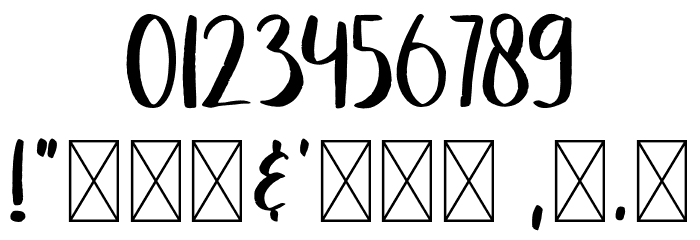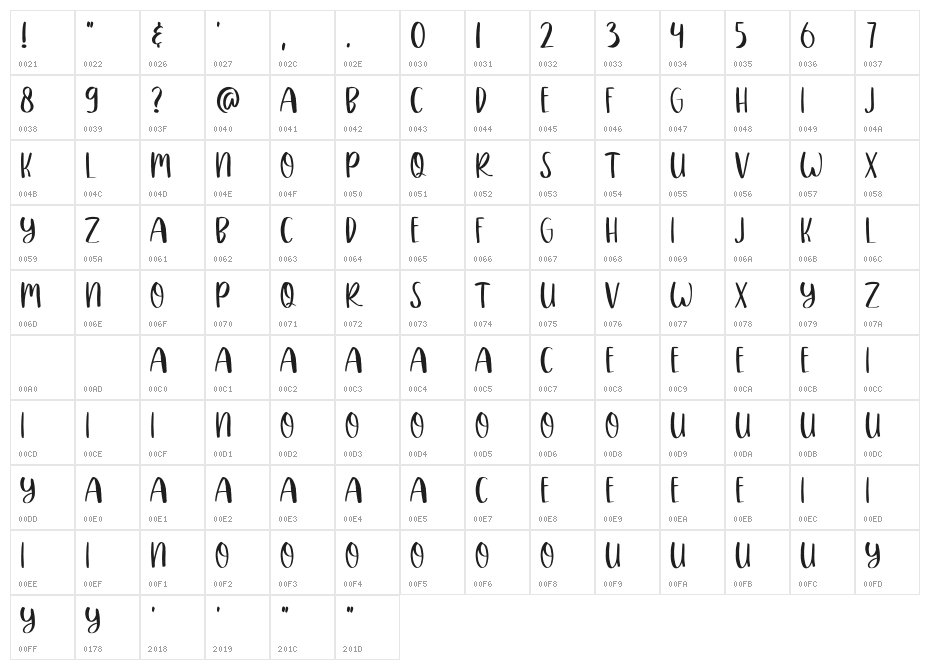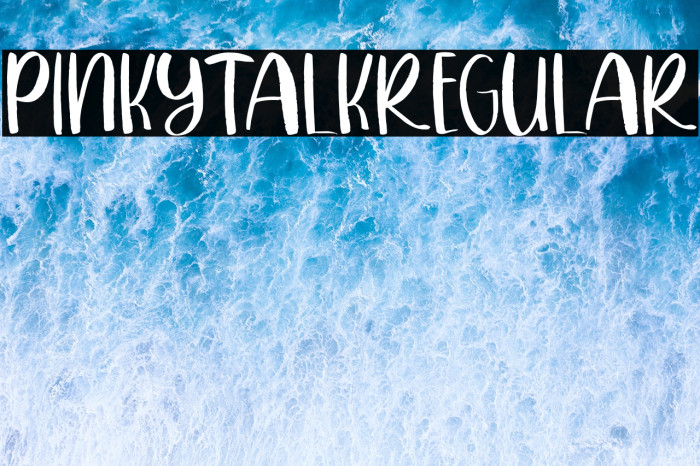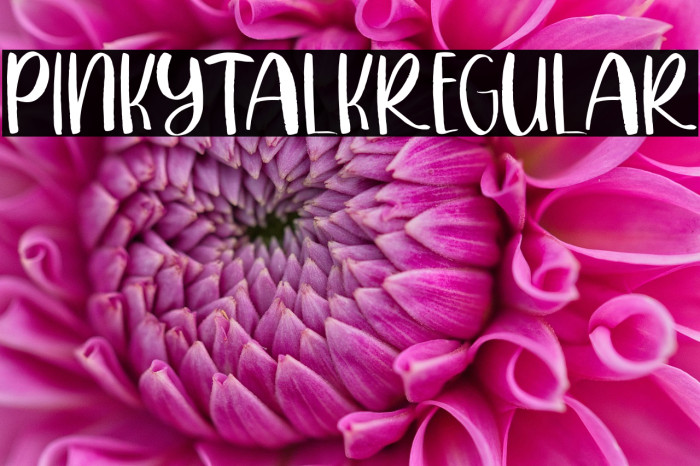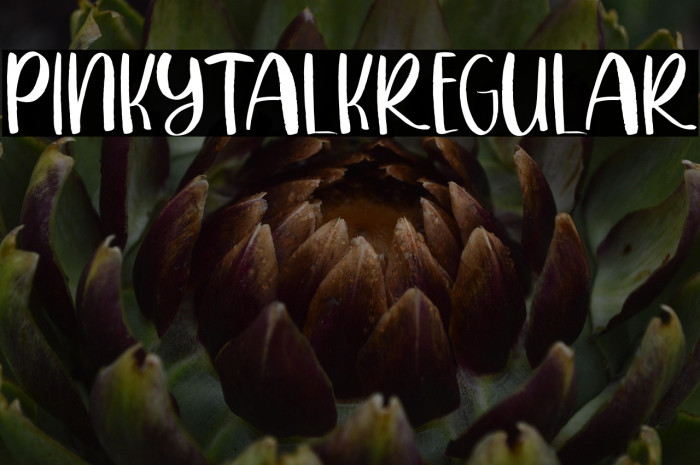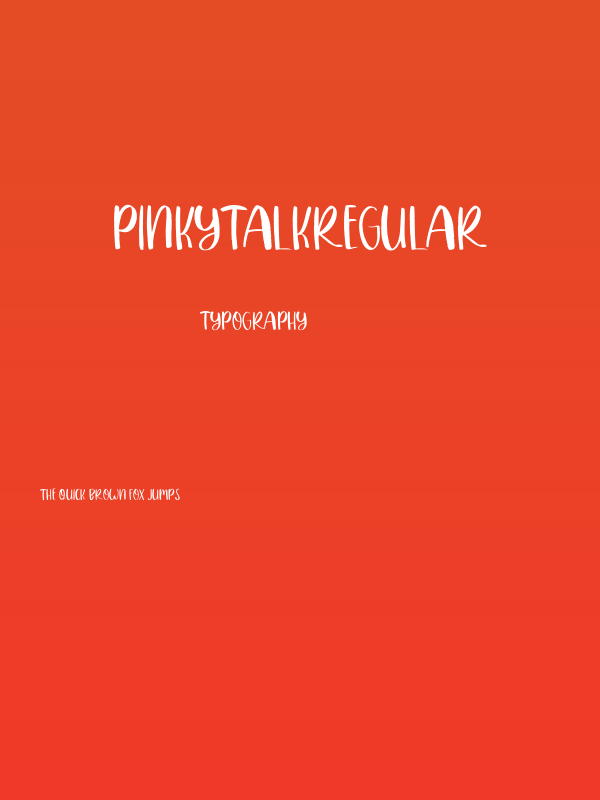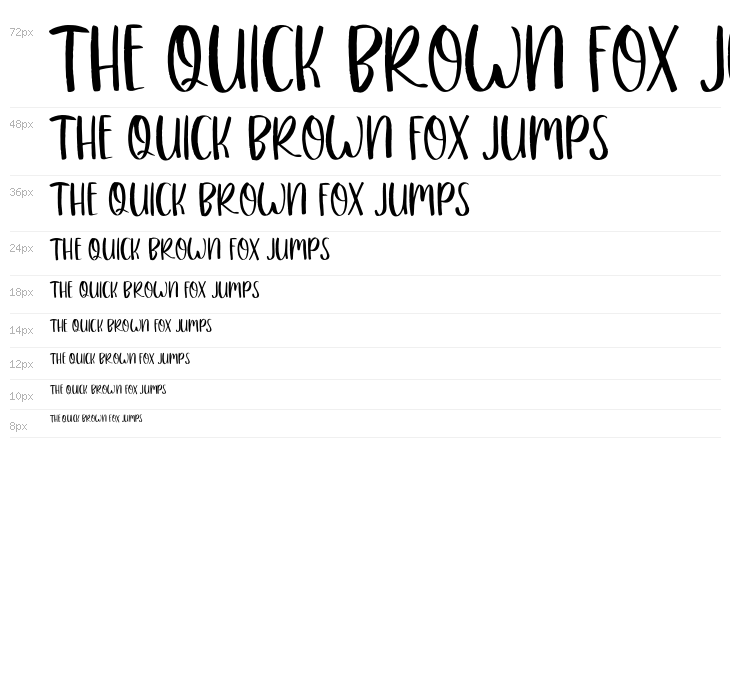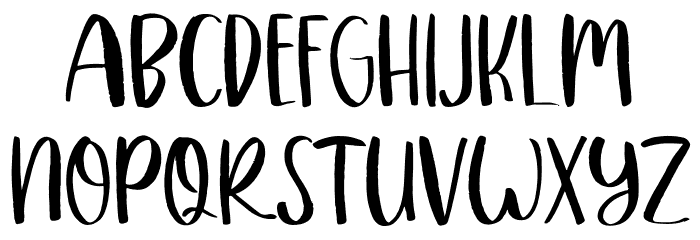
PINKYTALKRegular Font
PINKYTALKRegular Description
This font features a playful and casual handwritten style, characterized by its bold and slightly irregular strokes. The letters have a natural flow, with some characters exhibiting a slight slant, adding to the informal and friendly appearance. The uppercase and lowercase letters maintain a consistent style, with rounded edges and varying stroke widths that give a dynamic and lively feel. The numerals and special characters follow the same aesthetic, ensuring a cohesive look across all text elements. This font is ideal for projects that require a personal touch, such as invitations, greeting cards, or creative branding.